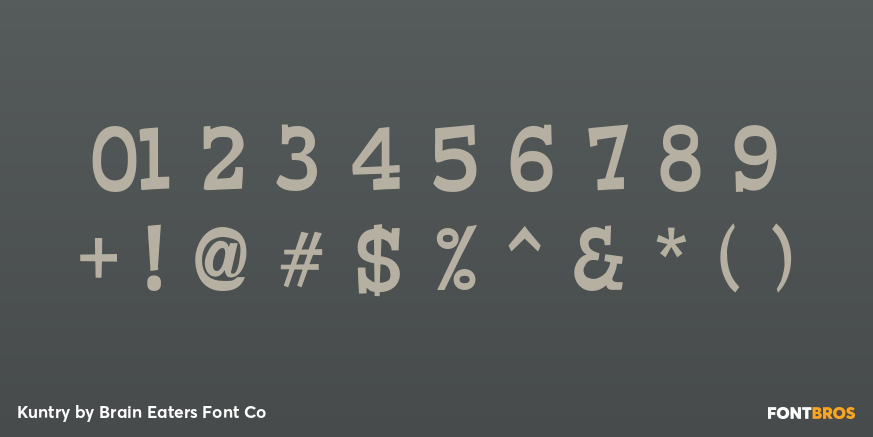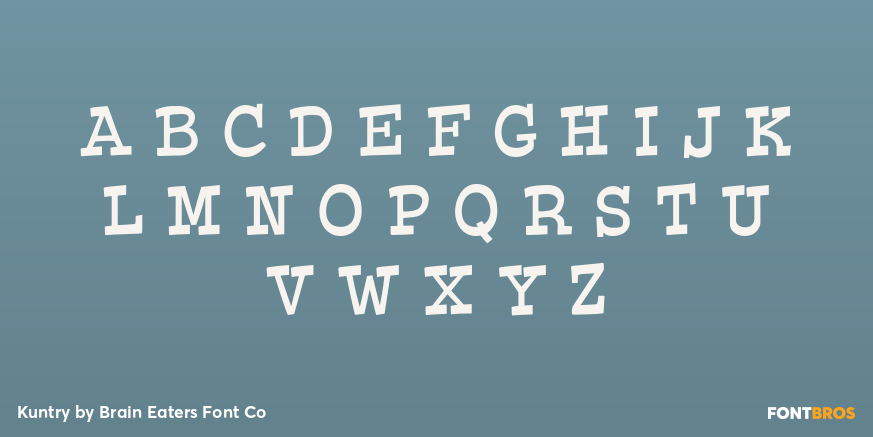
Kuntry
Font Family by Brain Eaters Font Co
Kuntry is a retro serif display family with a playful, offbeat attitude. Its wacky 1940s–1960s flavor gives headlines and logos a bold vintage personality, making it a strong pick when you want something fun, expressive, and unmistakably nostalgic.
Offered by Brain Eaters Font Co, the family includes three styles: Kuntry Regular, Kuntry Hog, and Kuntry Joe. That small set gives you a few ways to vary the look while keeping a consistent voice across a project.
Use it for posters, branding, packaging, signage, apparel graphics, or any display work that benefits from retro energy and a slightly quirky serif presence. If your design calls for a fun vintage feel rather than a polished modern tone, this family has the character to carry it.